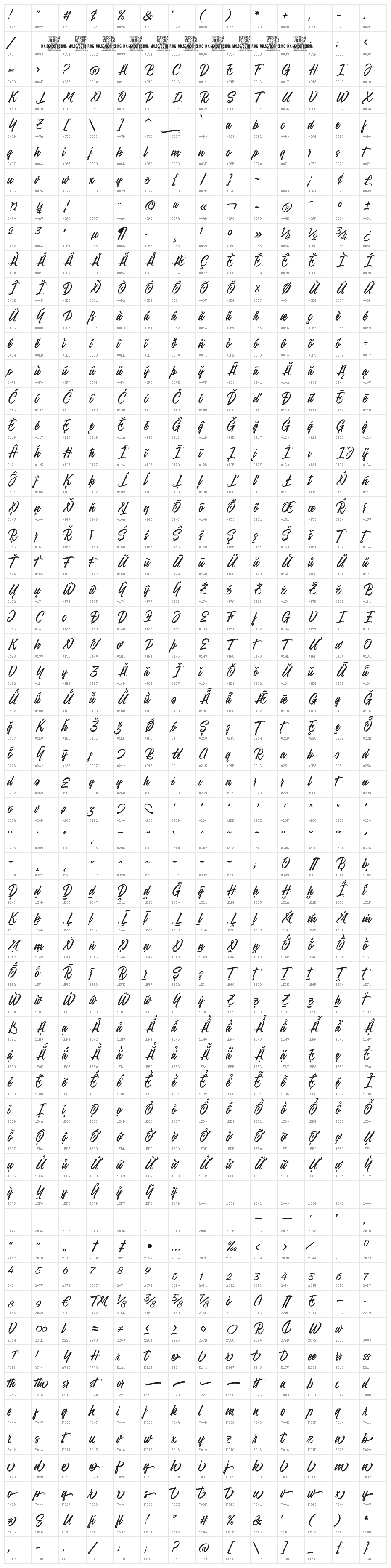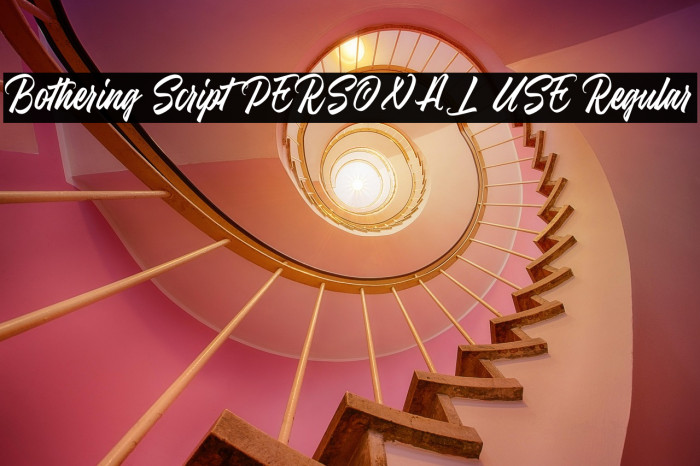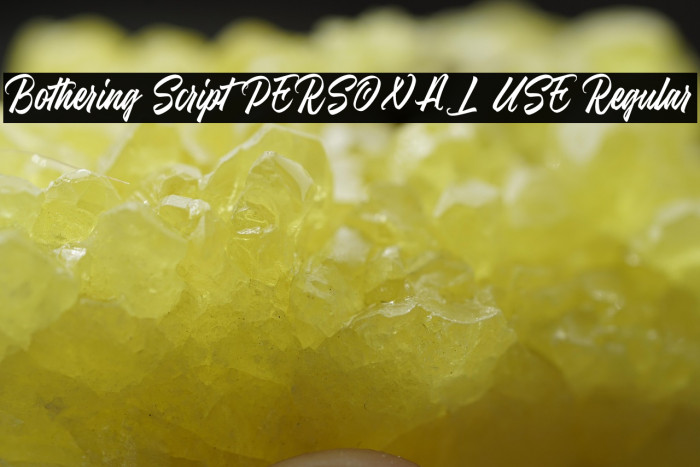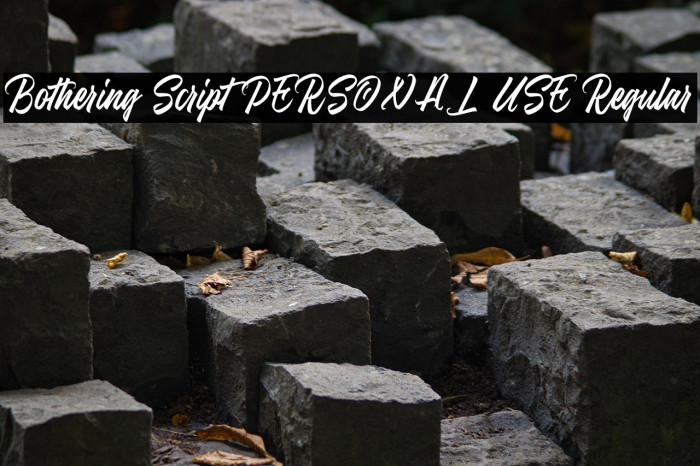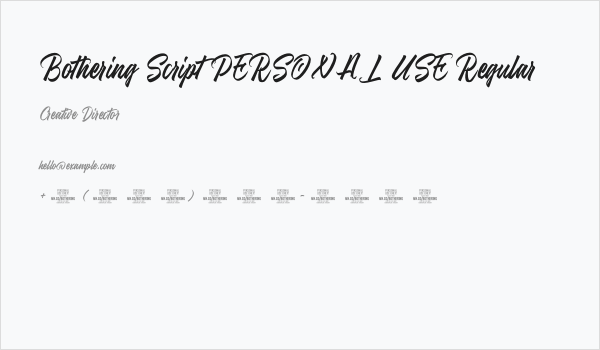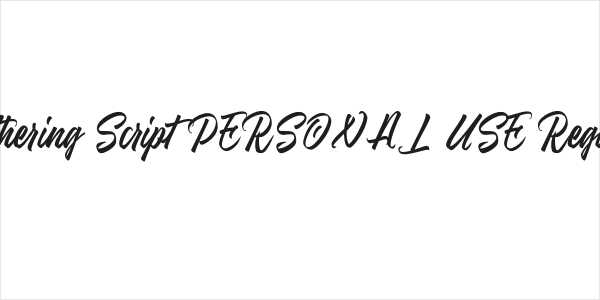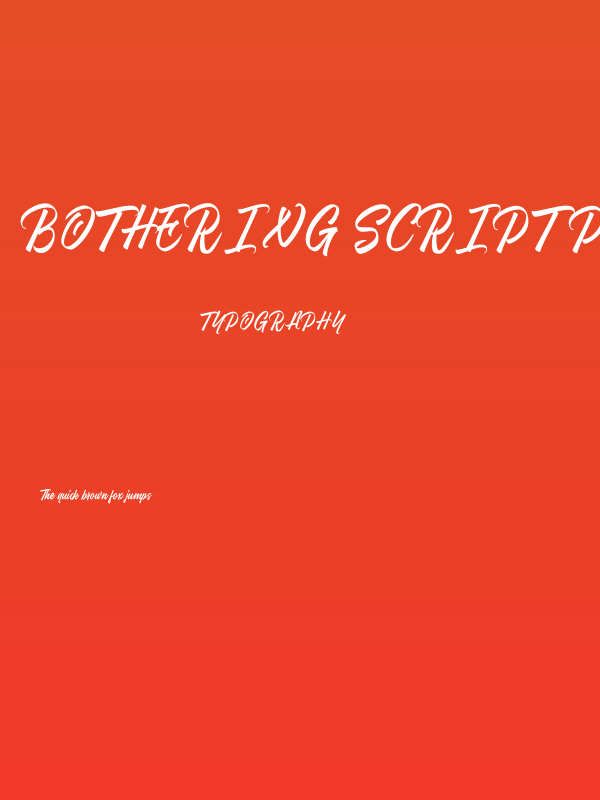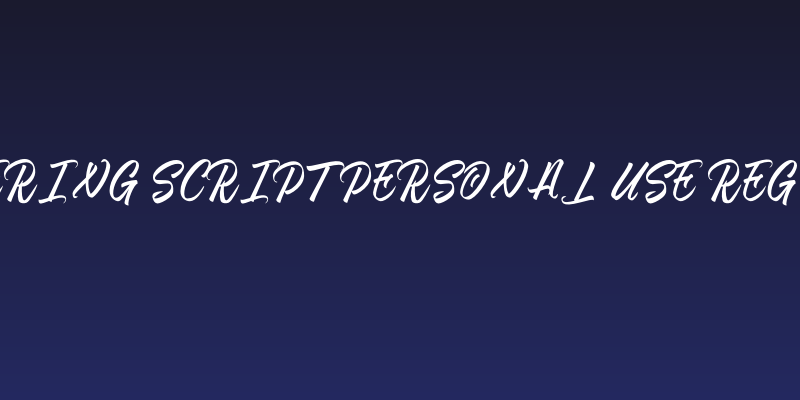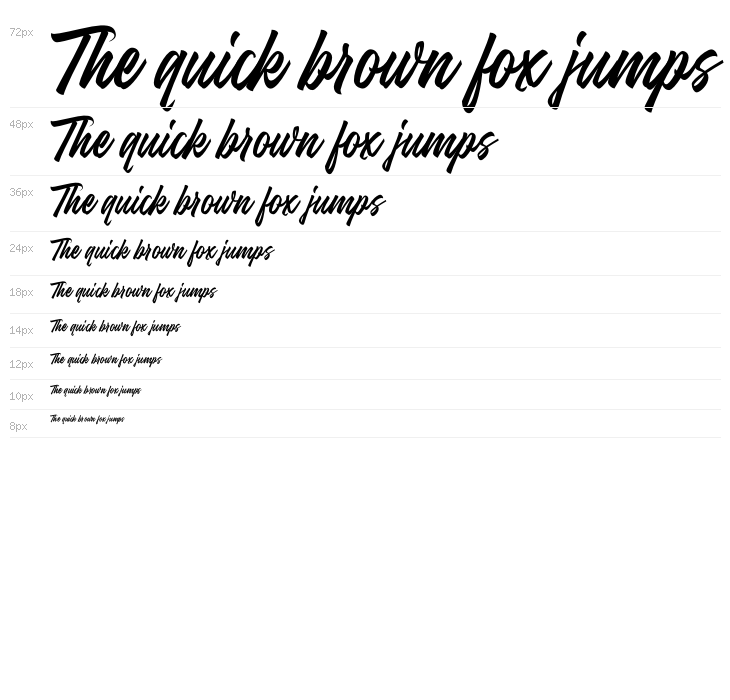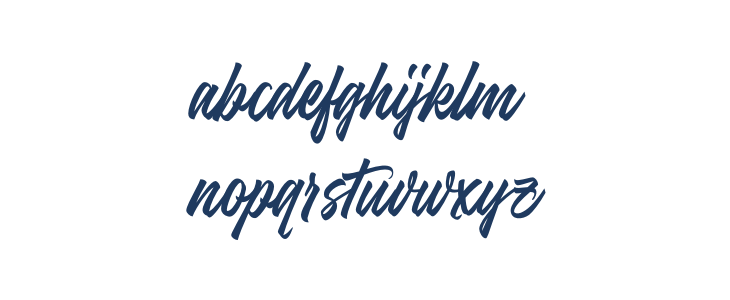
Bothering Script PERSONAL USE Regular Font
Bothering Script PERSONAL USE Regular Description
This script font features a dynamic and flowing style, characterized by its elegant, cursive letterforms. The uppercase letters exhibit a graceful, sweeping motion with a slight slant, while the lowercase letters maintain a consistent rhythm and fluidity. The font's strokes are bold and confident, with a medium contrast between thick and thin lines, adding to its expressive nature. The characters are well-spaced, allowing for readability while preserving the artistic flair typical of script fonts. This font is suitable for projects that require a personal, handwritten touch, such as invitations, greeting cards, and branding materials.